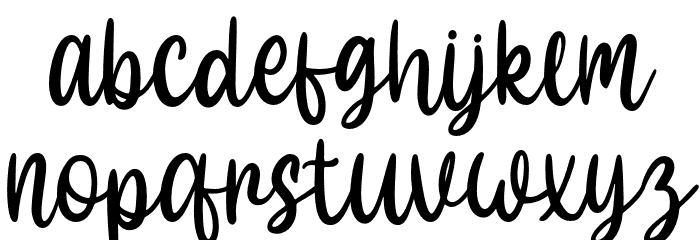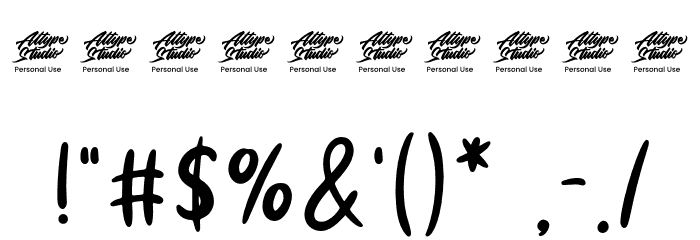
Hallo White - Personal Use Font
This font features a playful and flowing script style, characterized by its smooth, cursive strokes and elegant curves. The uppercase letters are bold and prominent, with a slight slant that adds a dynamic feel. The lowercase letters maintain a consistent flow, enhancing readability while retaining a stylish flair. The numerals and special characters are crafted with the same attention to detail, ensuring a cohesive look across all text. This font's design is ideal for projects that require a touch of sophistication and creativity, making it suitable for both formal and casual applications.
A playful and flowing script font with elegant curves and smooth strokes.
- Proposed Projects: Ideal for wedding invitations, greeting cards, branding, and logo design.
- Use Case: Logos, Invitations, Branding